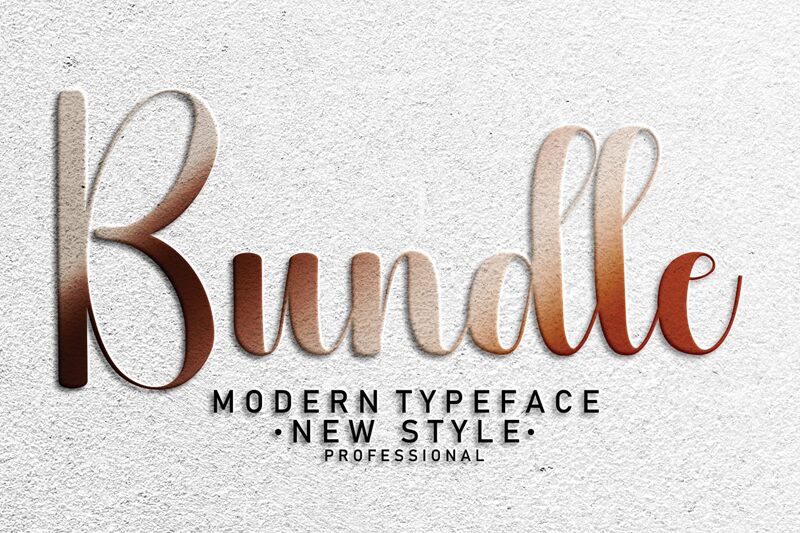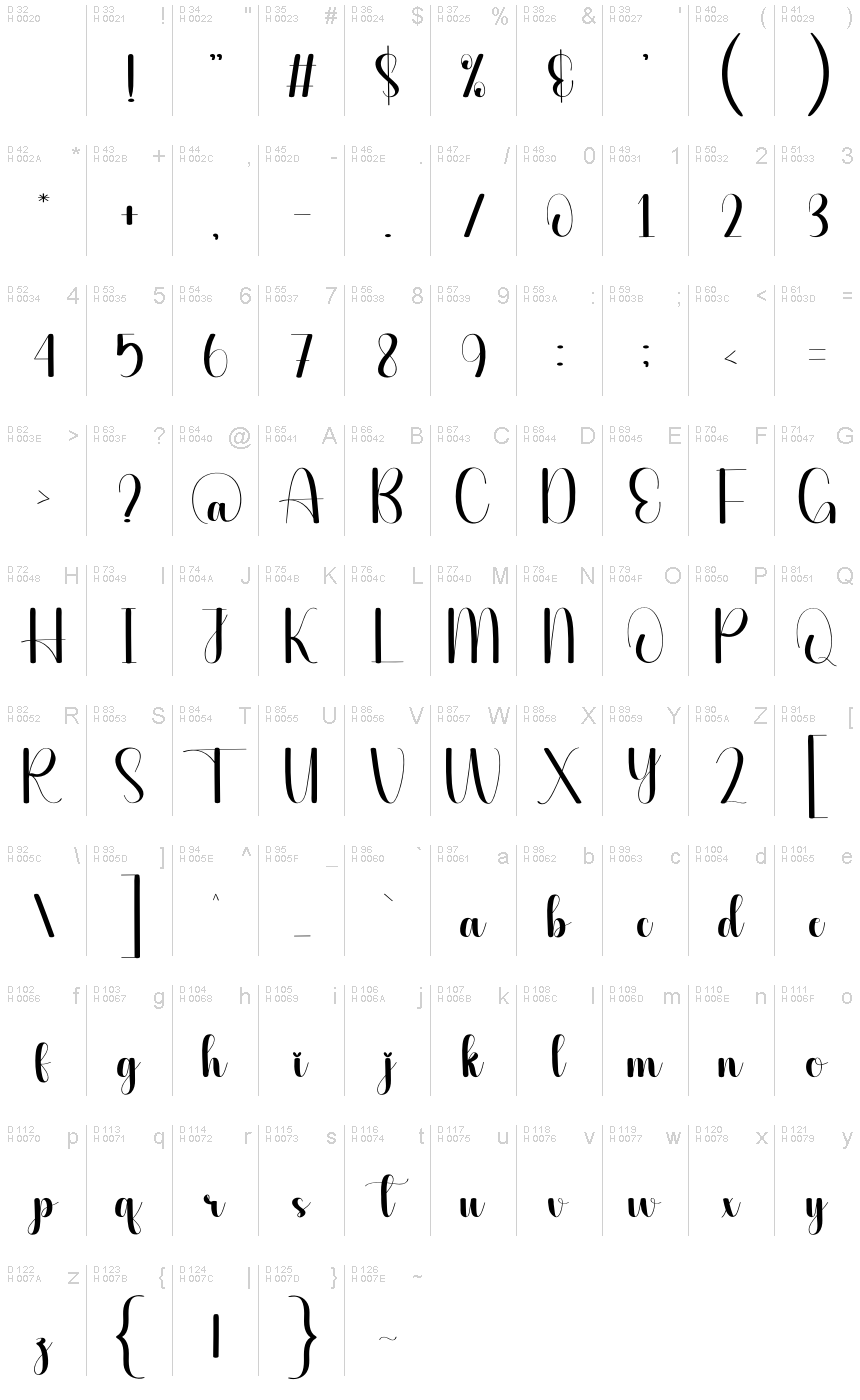
Bundle
Bundle font, crafted by Scratchones, embodies the art of calligraphy with a distinctive flair. This font radiates charm, featuring elegantly flowing strokes that blend sophistication and playfulness. Its graceful curves create an inviting atmosphere, making it perfect for inviting narratives or heartfelt messages.
The exaggerated forms lend a whimsical quality to any text, drawing attention effortlessly. The balance between bold statements and delicate details enhances its versatility across design contexts.